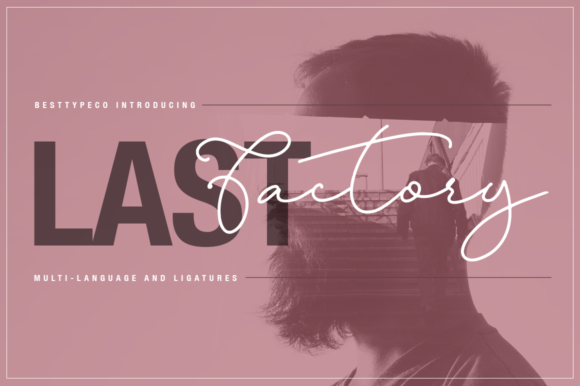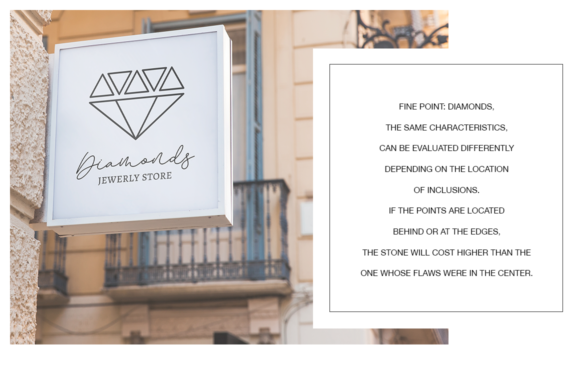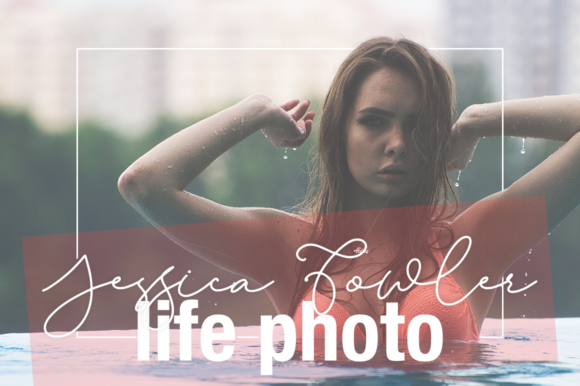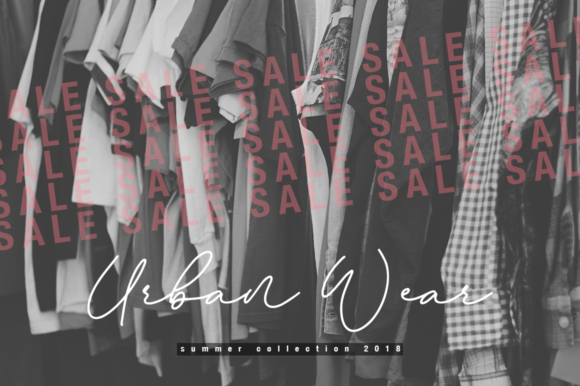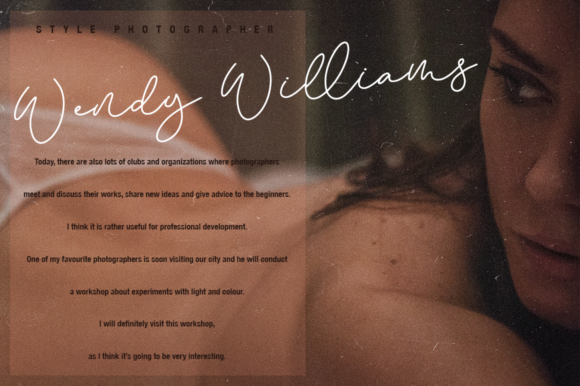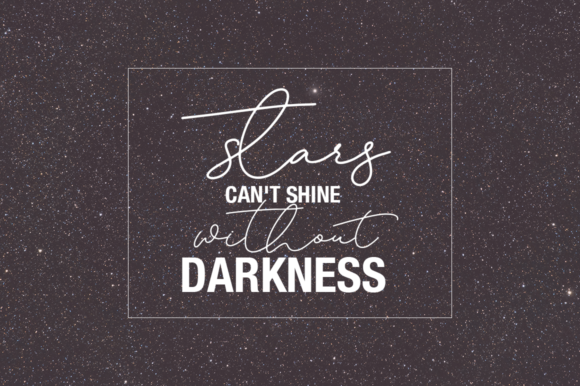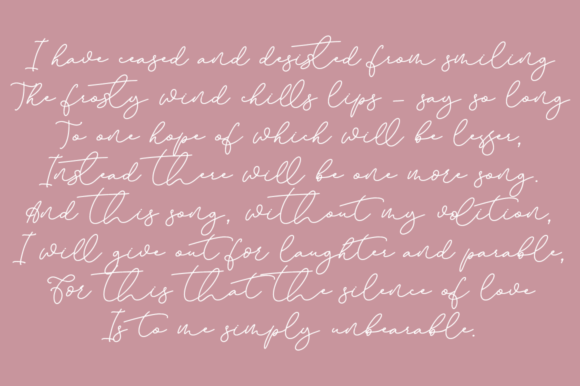
Last Factory Font
About Last Factory Font
The Last Factory is a beautiful handmade calligraphy font. It has an elegant style which makes it perfect for every design which needs to look upscale and chic.
It’s suitable for greeting cards, branding materials, business cards, quotes, posters, and more!